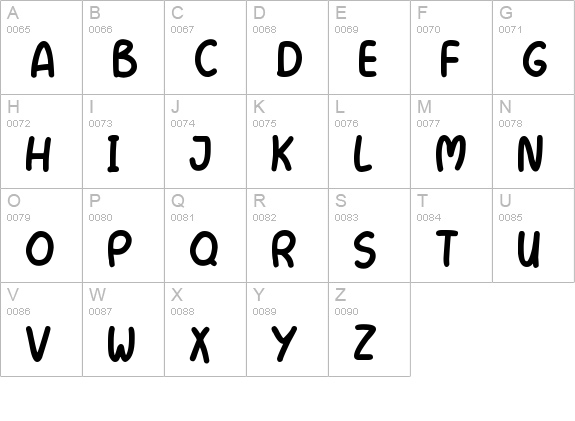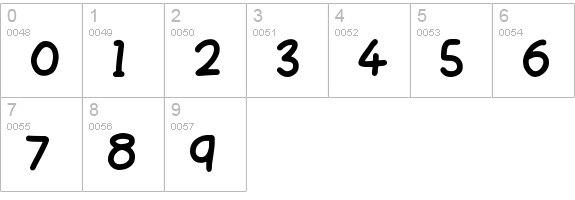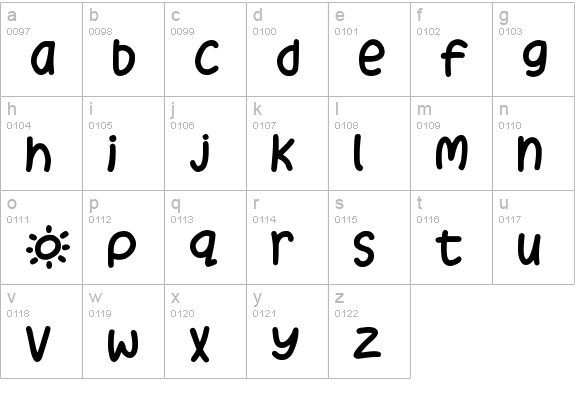
Summer Love Font Details
Summer Love is a donationware font in the Script > Handwritten category, designed by Darrell Flood. It has been downloaded 104 times and is available for Windows, Mac and Linux.
Summer Love font is a whimsical and charming typeface that exudes a sense of warmth and romance, making it perfect for any summer-themed project. With its playful curves and stylish flourishes, this font captures the essence of carefree days and love in the air. Whether you're designing invitations, greeting cards, or social media graphics, Summer Love font will bring a touch of sunshine to your creations.